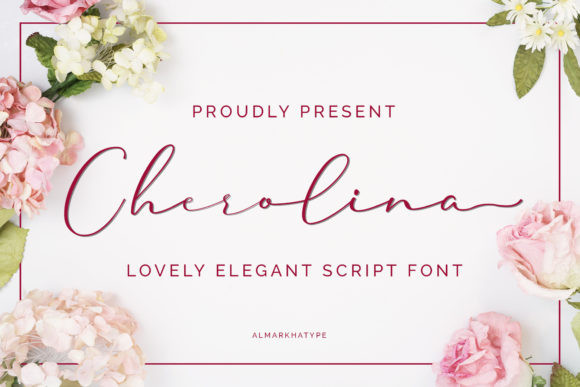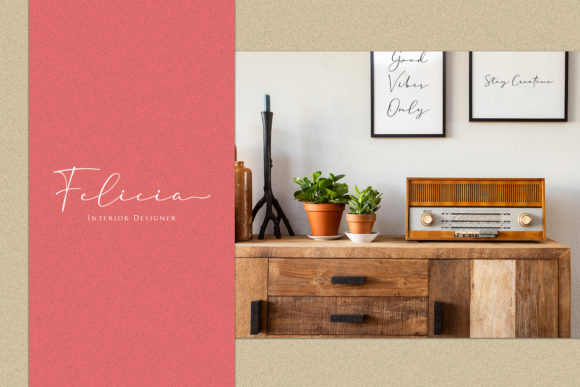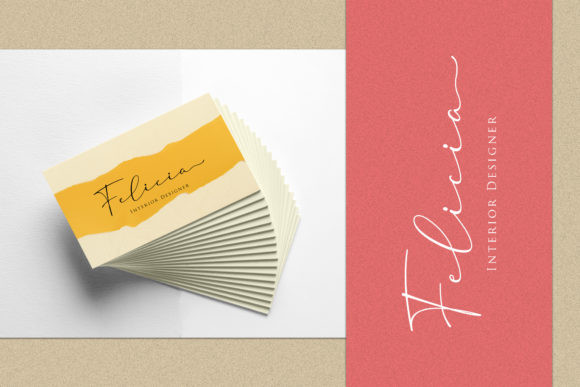
Cherolina Font
Cherolina is fancy and elegant, but also incredibly authentic. This versatile script font has a wide range of applications ranging from greeting cards to headlines and is guaranteed to add a romantic feel to your next craft.